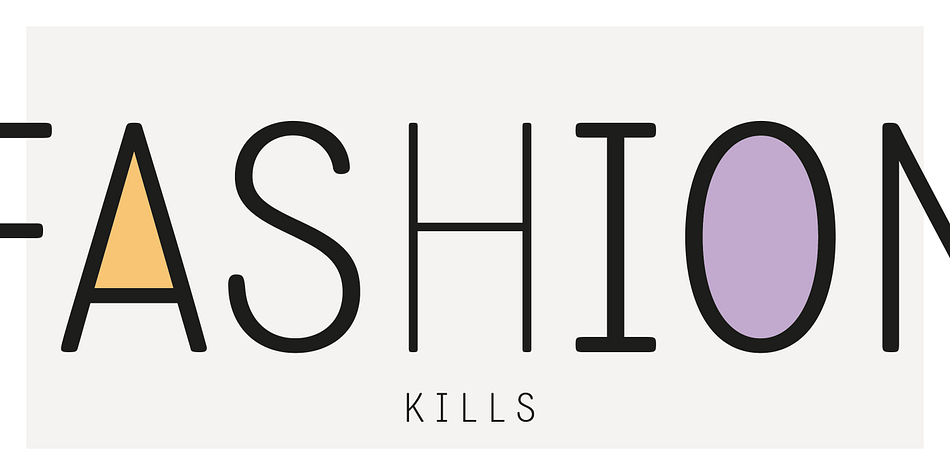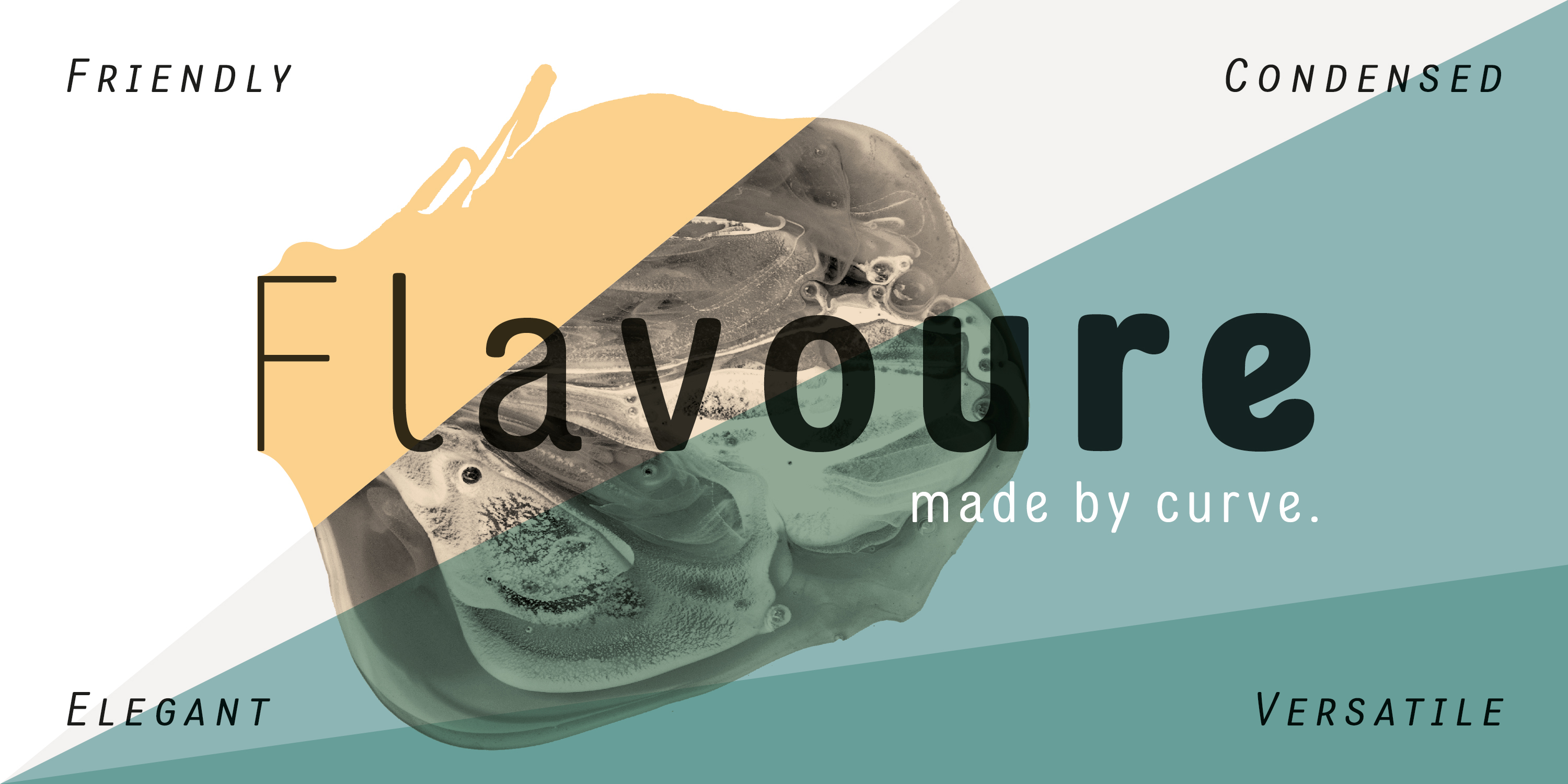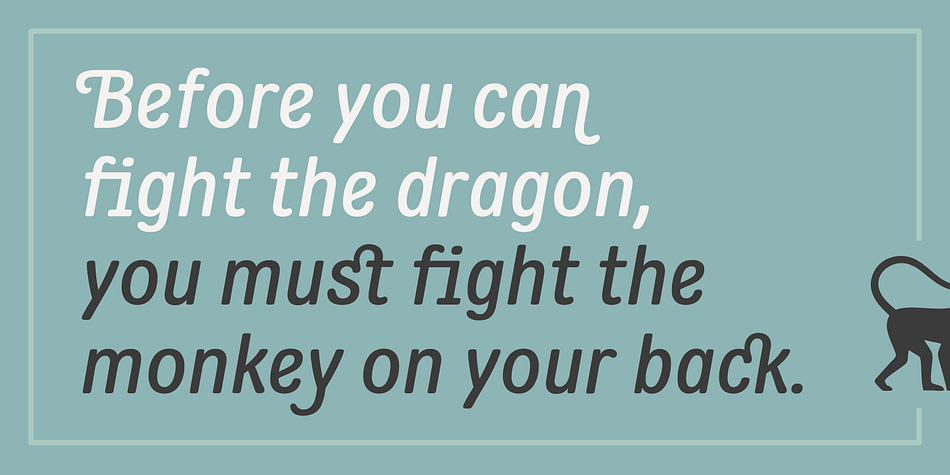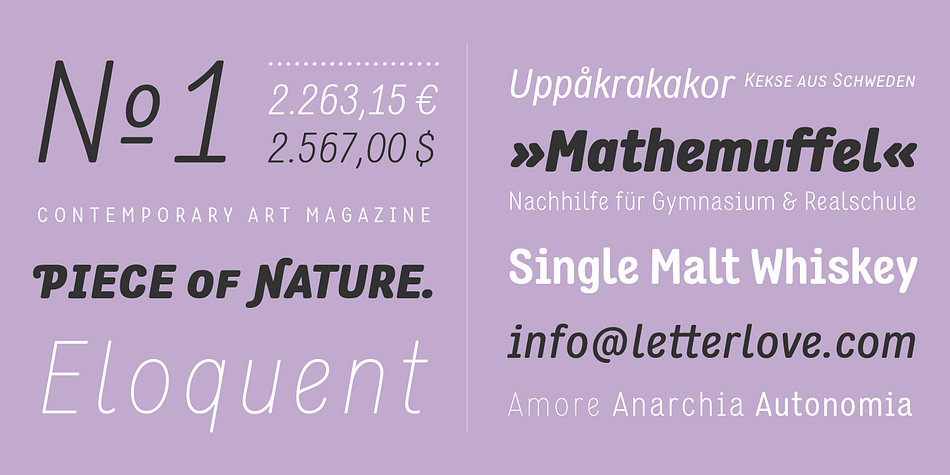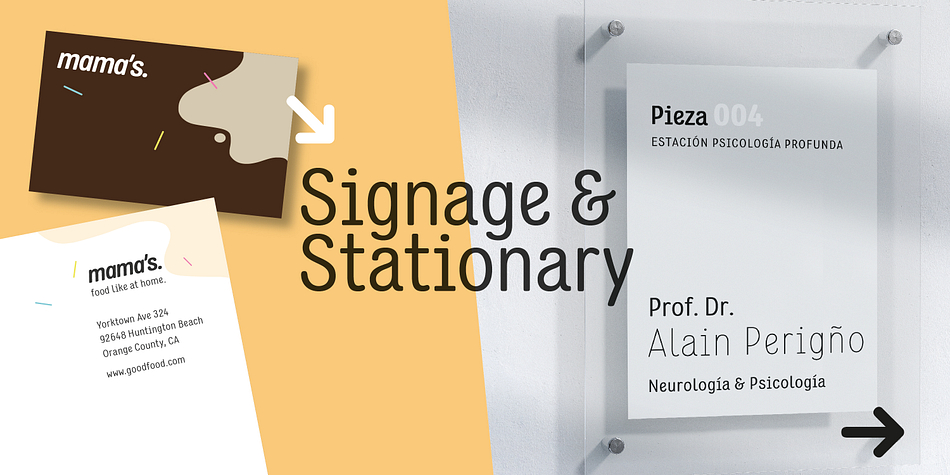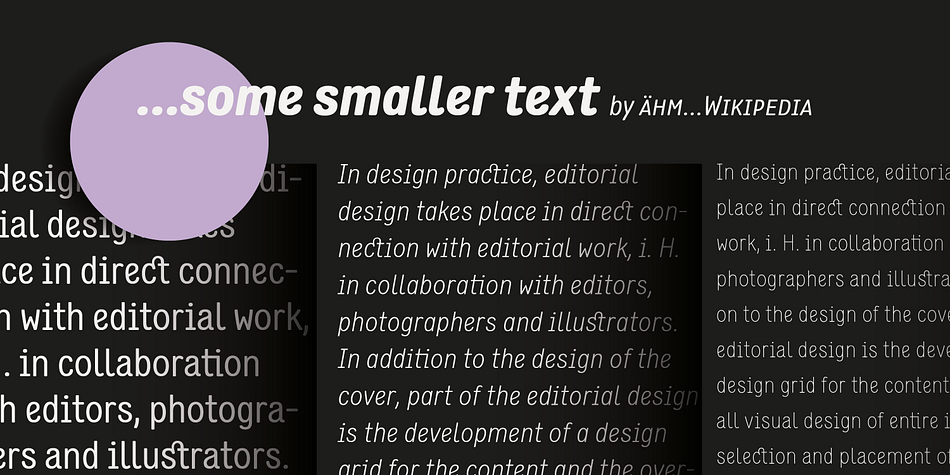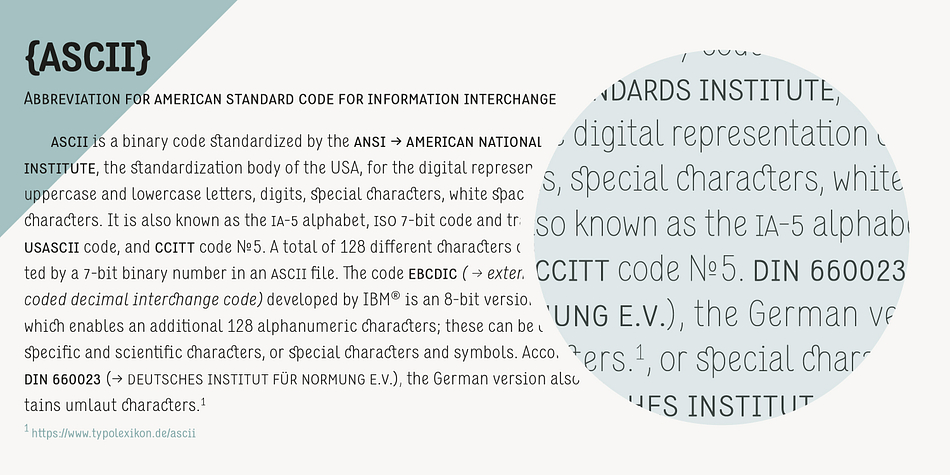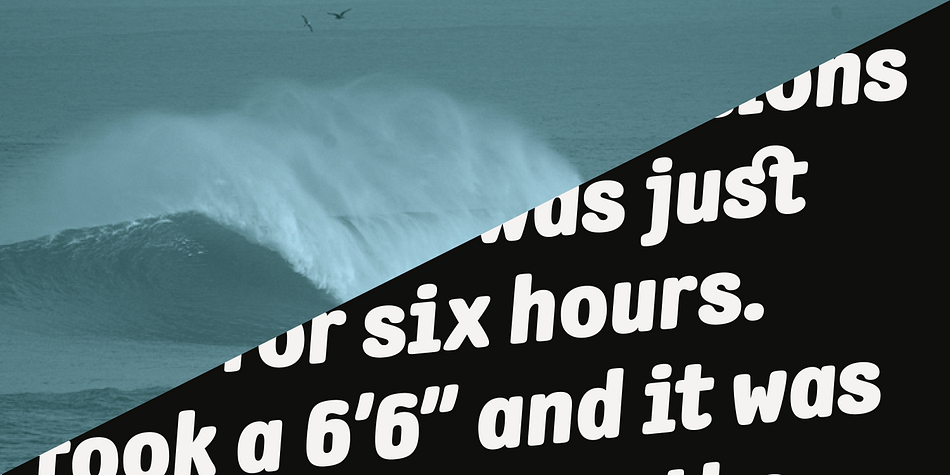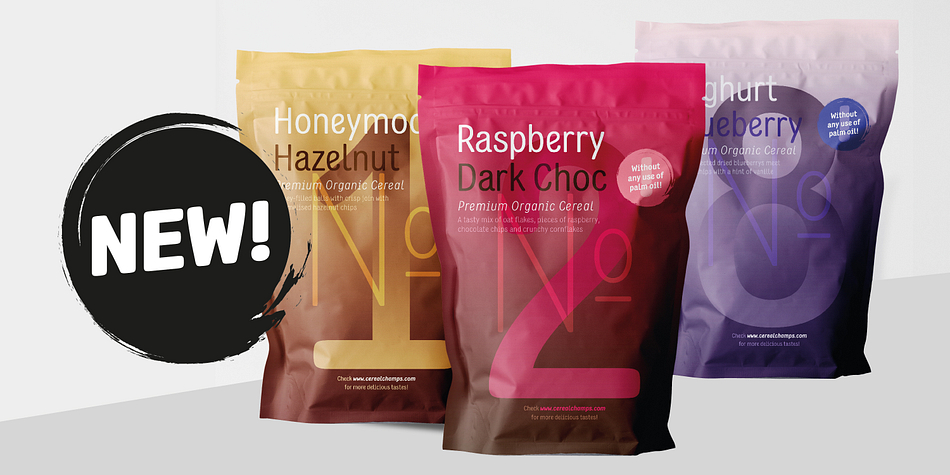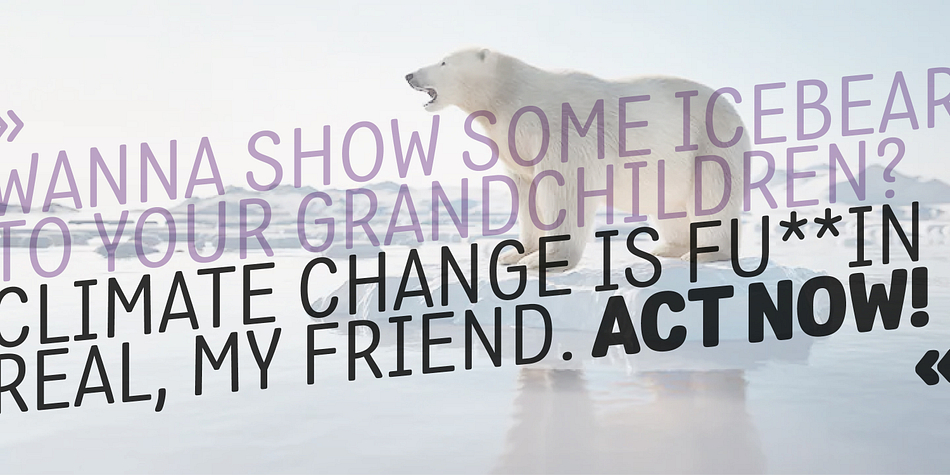
Designed by Christoph Ulherr, Flavoure is a sans serif font family. This typeface has fourteen styles and was published by JPFonts.
Flavoure is a friendly, round and soft, yet elegant and extremely versatile typeface family with each seven weights for roman and italic. All fonts have an extended character set including small caps, ligatures and swash letters for better typography. Flavoure can be used for texts as well as for headlines, logos, packaging, stationary and much more. Please, have a look at the beautiful PDF which was created by Christoph Ulherr, the designer of Flavoure.